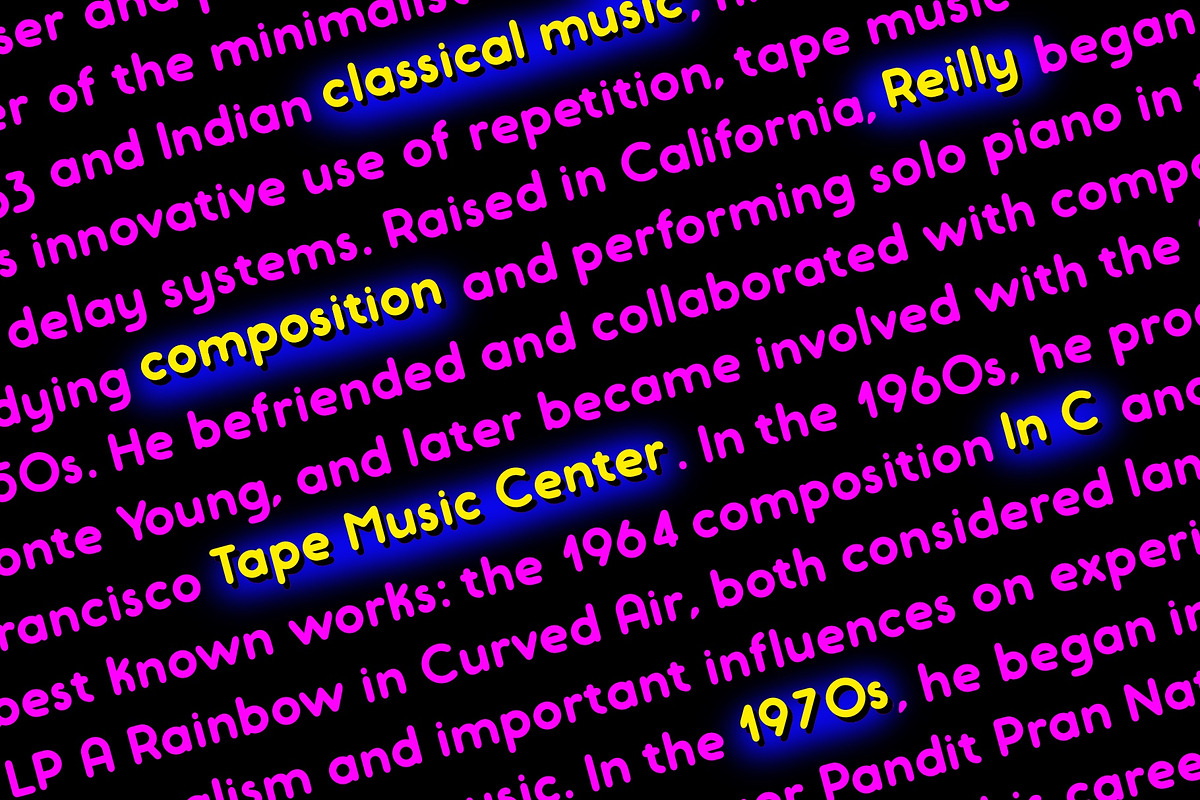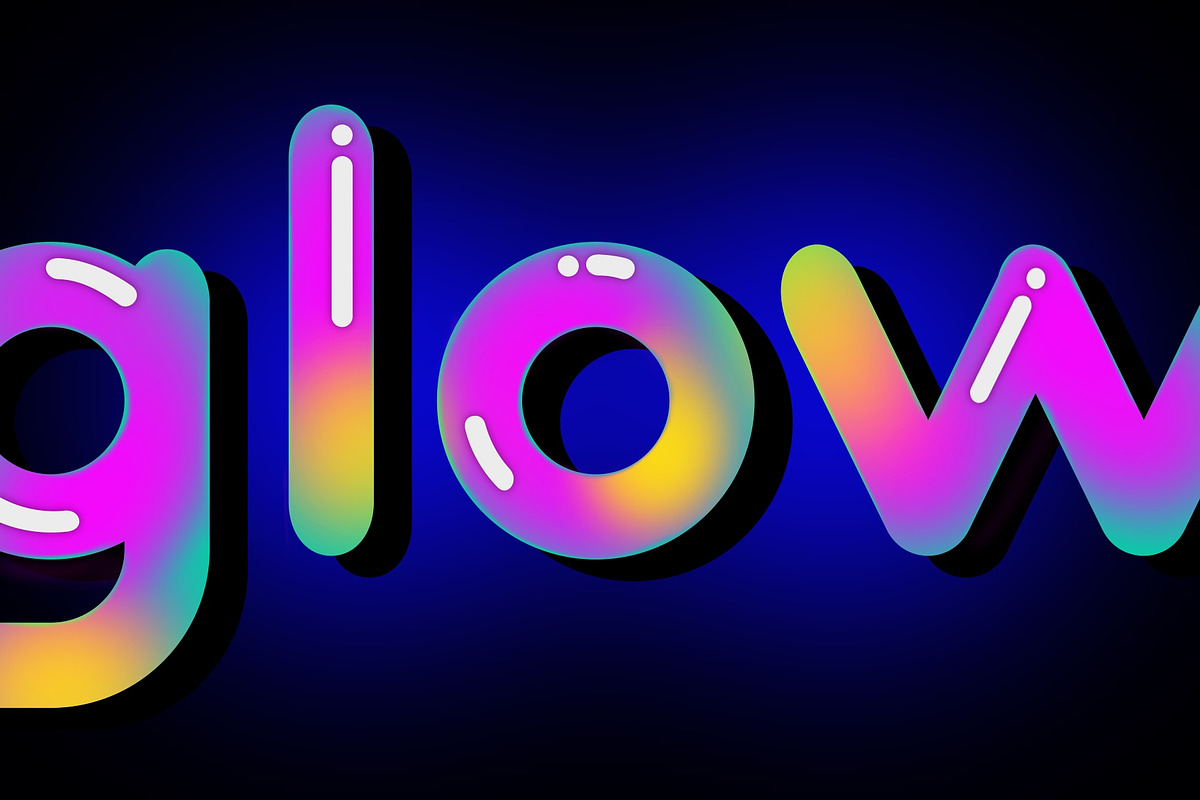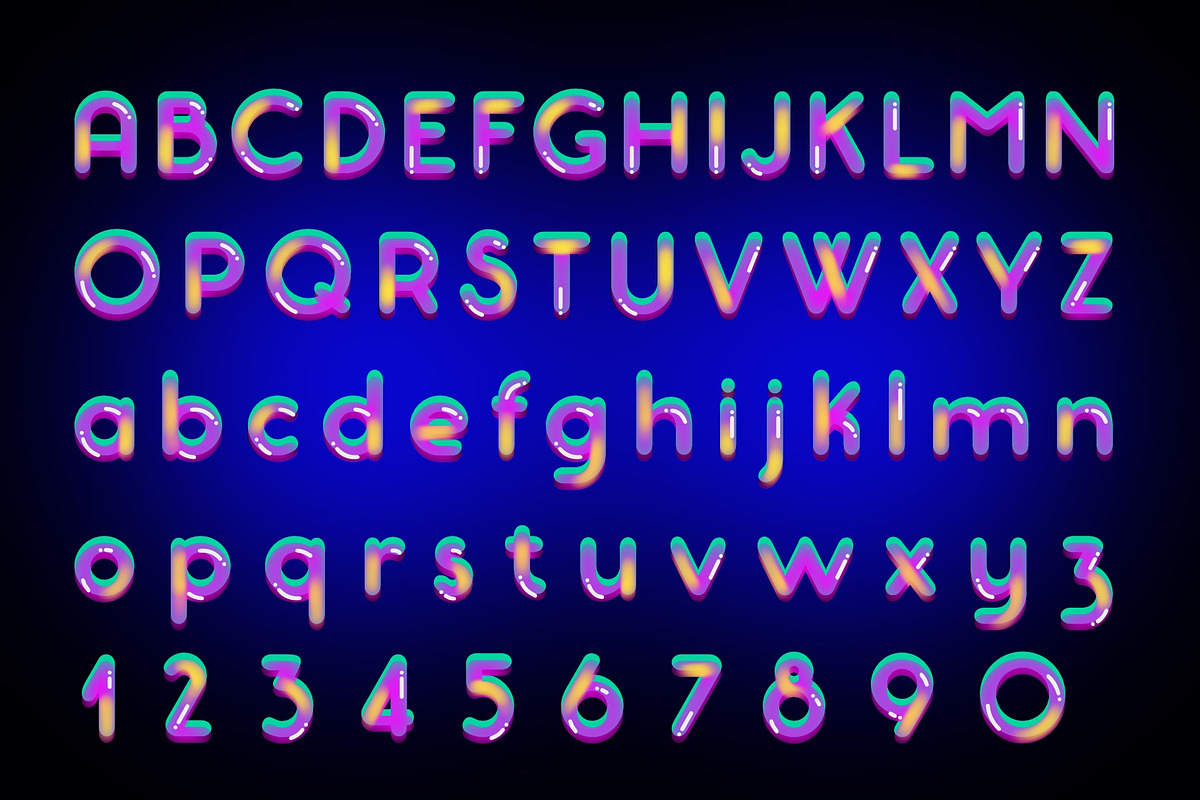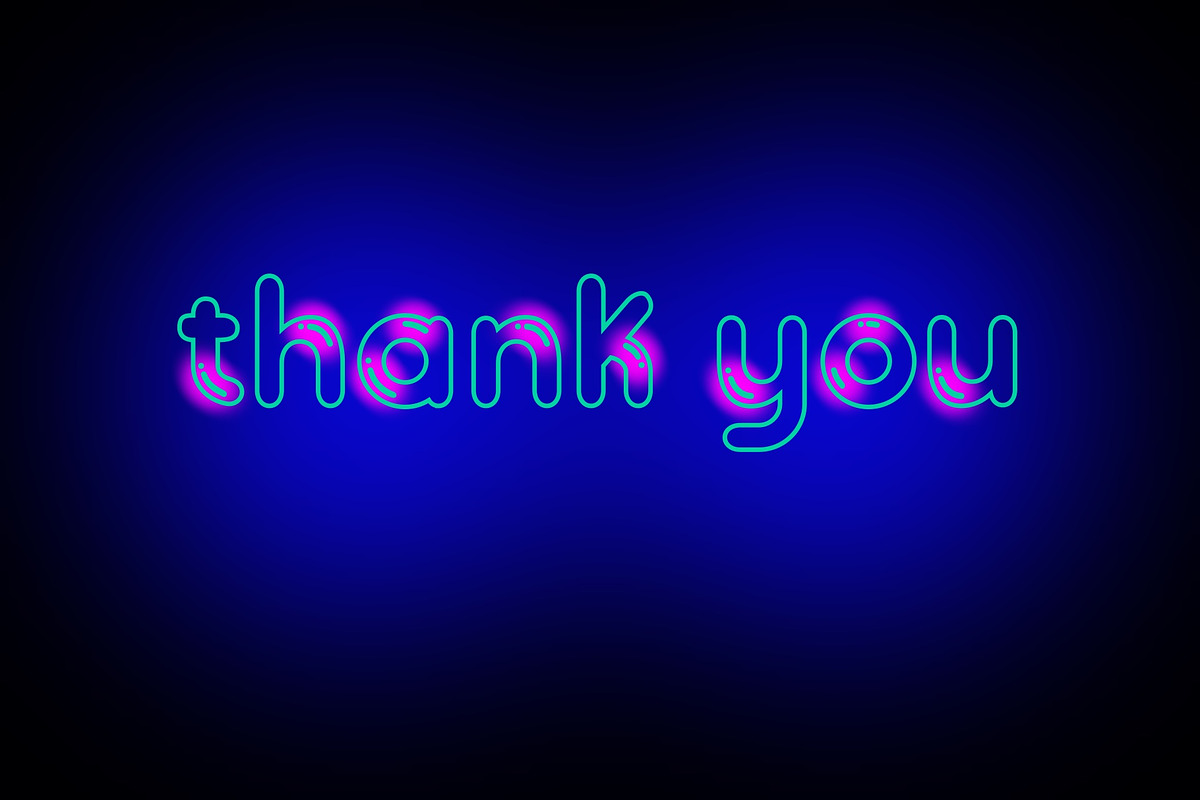
Riley Wow
Riley Wow typeface is rounded sans serif. It includes 3 font styles that can be used together to call glowing effect. The typeface supports all European languages based on Latin alphabet.